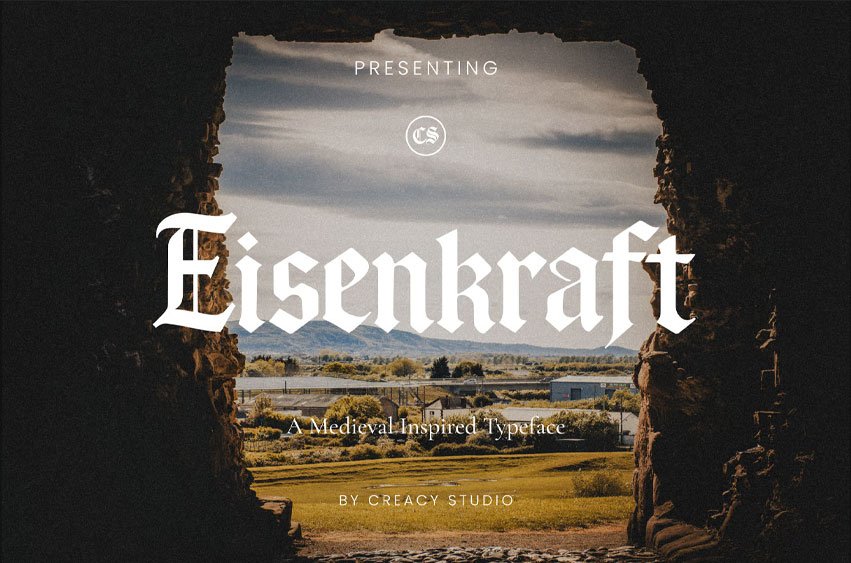
Eisenkraft Font is a gothic-inspired blackletter typeface that combines medieval craftsmanship with modern design. Featuring bold letterforms and elegant details, it adds a dramatic and timeless look to any creative project.
- Distinct blackletter style
Perfect for:
- Posters and cover art
- Branding and logo design
- Editorial and magazine layouts
- Film titles and creative projects
Bring medieval strength and elegance to your designs with Eisenkraft.